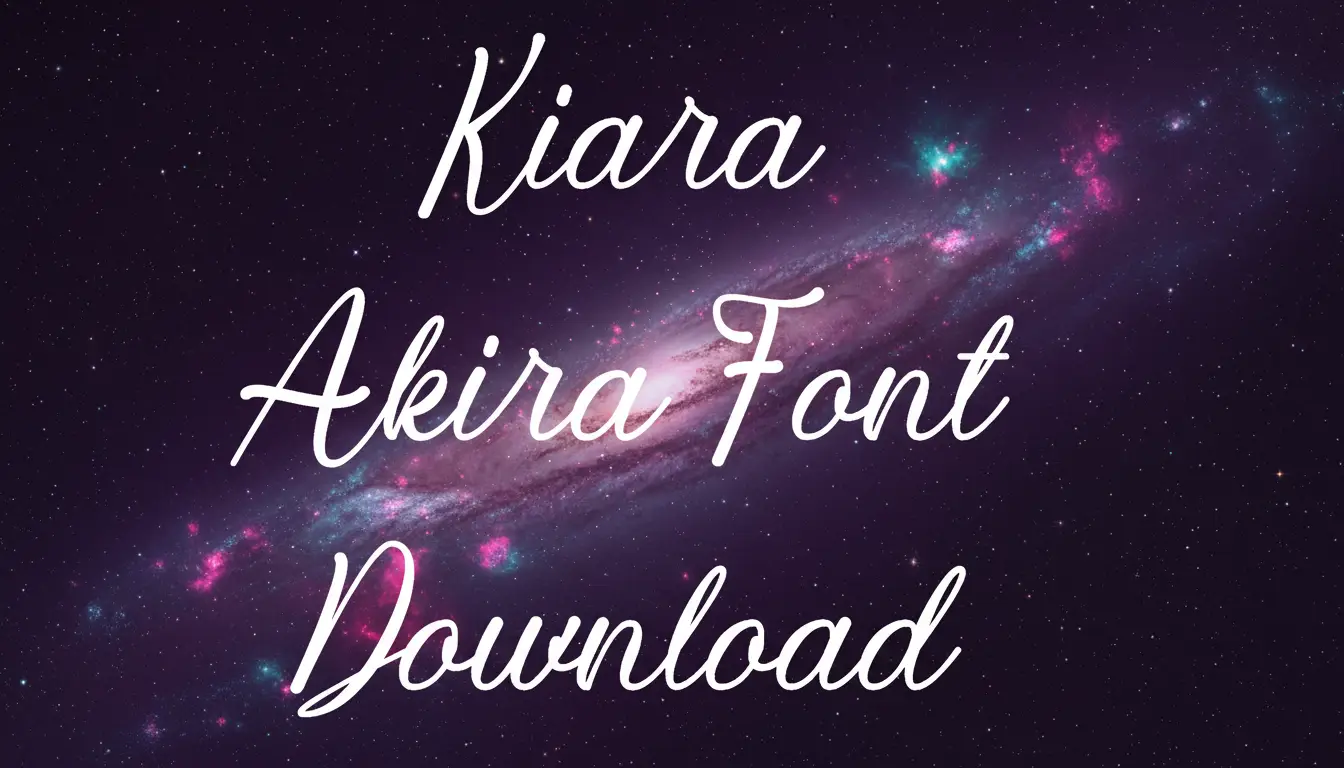
Kiara Akira Font
Kiara Akira
Kiara Akira is a script font created by Doehantz Studio – Abduhan Fikhri. It has that hand-lettered, flowing feel people look for when regular type seems too stiff. It's a free download, and you can try it with your own text in the preview above first.
You get every letter from A to Z in both cases and all the numbers from 0 to 9, which means Kiara Akira can handle full sentences, dates and prices. Common punctuation such as &, !, ? and @ is included as well. It doesn't include accented letters such as é or ñ, which makes it an English-only font.
Designers usually reach for fonts like Kiara Akira when they're making wedding invitations, logos and signature-style headings. Script fonts read best in short bursts, so keep it to names, titles and one-line quotes. Skip all caps: script capitals are drawn to start a word, not to fill one.
No. Kiara Akira has no accented letters such as é, ñ or ü, so it's best for English text.